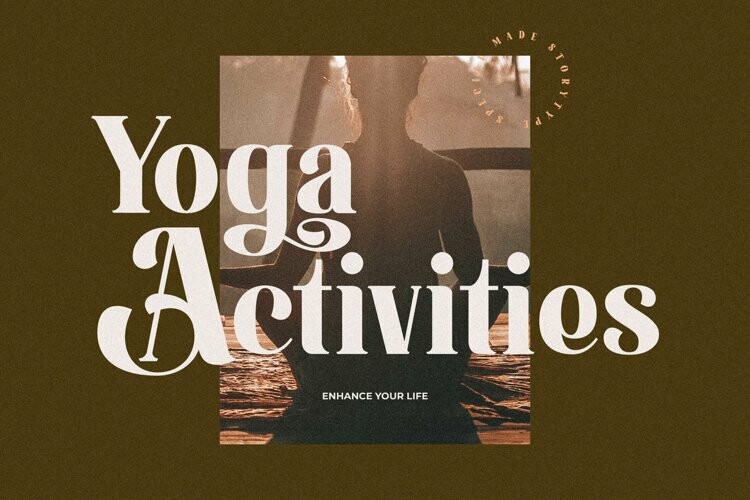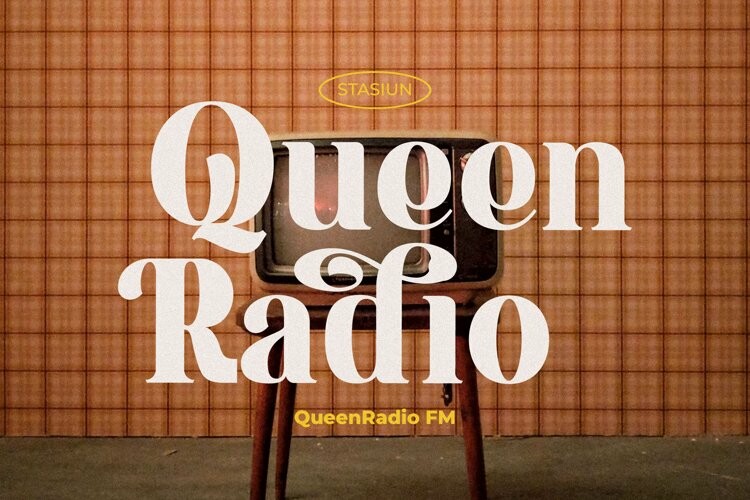
Quick Delight Font
Quick Delight FontProudly present Quick Delight Typeface , created by Storytype,
A serif modern and classic typeface that has own unique style & modern look.
This typeface is perfect for an elegant & luxury logo, book or movie title design, fashion brand, magazine, clothes, lettering, quotes, and so much more.